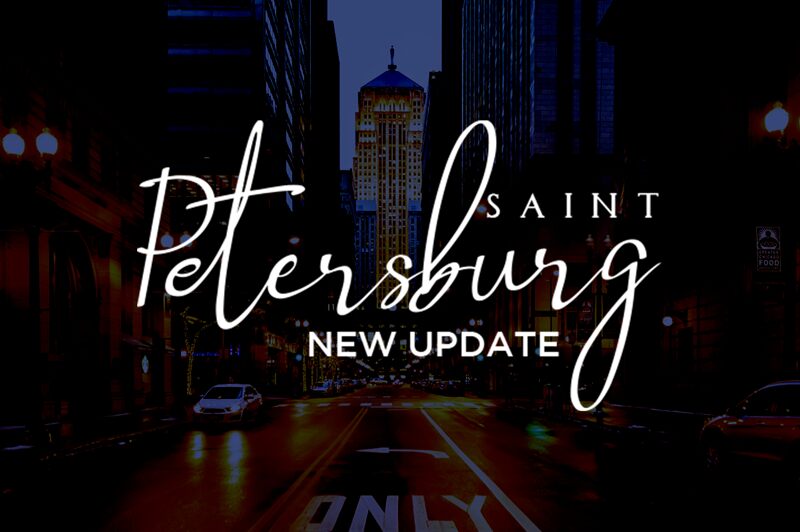
Saint Petersburg 2 Italic is a stunning addition to the Saint Petersburg font family designed by Haksen Studio. With its unique handwritten style and semi-light weight, this font is perfect for adding a personal touch to your projects. Whether you're designing invitations, creating social media graphics, or crafting a logo for your business, Saint Petersburg 2 Italic will make your text stand out. Its elegant and sophisticated look will add a touch of class to any project while maintaining readability. Make your designs shine with the beauty of Saint Petersburg 2 Italic – the perfect semi-light handwritten font choice!
Saint Petersburg 2
Saint Petersburg 2 Italic